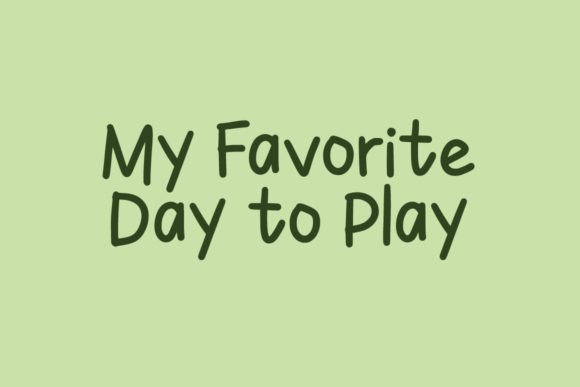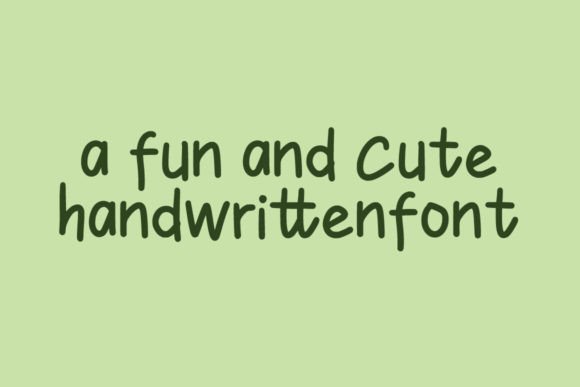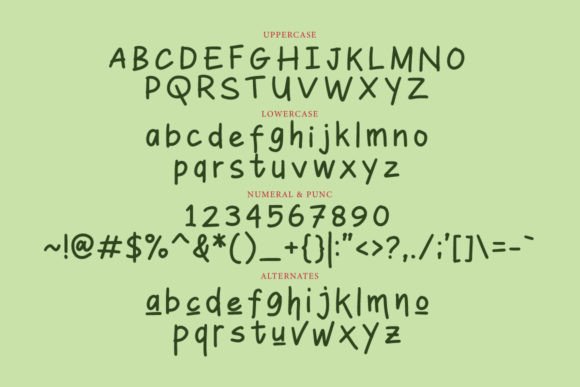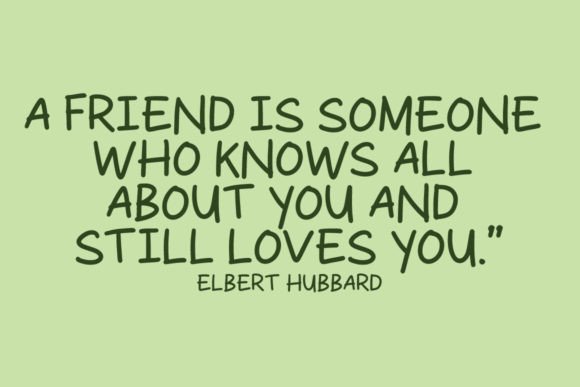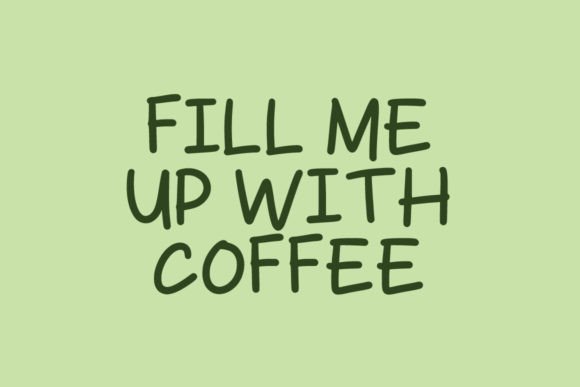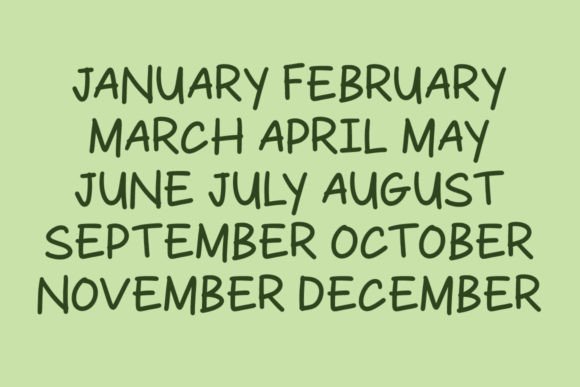
The Perfect Font for Making a Statement
Have you ever stared at a blank page, pen in hand, waiting for that elusive spark of creativity to strike? The moment when words flow effortlessly onto the page, and your design takes shape? That’s the magic of design. And for designers looking to add an extra layer of flair to their work, there’s one font that’s sure to deliver: the Bobby Flow Display Font.
| 👤 Author | Tebaltipis.std |
This awesome character regular font is perfect for making a statement, whether it’s on a namecard, poster, logo, or even a t-shirt. Its unique style and versatility make it a valuable addition to any designer’s toolkit. With the Bobby Flow Display Font, you can add a touch of sophistication and personality to your designs, setting them apart from the crowd.
Bobby Flow Display Font Key Features
- Font Family: Bobby Flow Display Font
- Unique Characteristics: Bobby Flow Display Font features a unique, hand-drawn design with a flowing, cursive feel, making it ideal for use in headings, titles, and other display typography
Bobby Flow Display Font Review
Overall, I think Bobby Flow Display Font has some great qualities, but it also has some areas where it falls short. Let’s dive in.
- Fun, creative feel: This font is perfect for designers looking for something a bit quirky and eye-catching. It’s great for titles and headings where you want to add some personality.
- High-quality rendering: The font renders well on both digital and print materials, making it a solid choice for various design projects.
- Wide character set: Bobby Flow Display Font includes a wide range of characters, including punctuation, numbers, and even some special characters.
- Limited legibility at small sizes: While the font looks great at larger sizes, it can become difficult to read at smaller sizes. This may be a concern for designers who need to use the font in smaller contexts.
- No bold or italic weights: Unfortunately, Bobby Flow Display Font only comes in one weight, which can limit its versatility.
Overall impression
Bobby Flow Display Font is a solid choice for designers looking for a fun, creative font. While it may not be suitable for all design projects, it’s perfect for those where you want to add some personality and flair. Just be mindful of its limitations, especially when it comes to legibility at small sizes.
Use Bobby Flow Display Font to create eye-catching headlines and titles.
Combine it with other fonts to create a unique and visually appealing design.
Experiment with different font sizes and colors to achieve the desired effect.
Bobby Flow Display Font is perfect for:
Creating bold and eye-catching headlines.
Designing posters, flyers, and social media posts.
Adding a touch of sophistication to presentations and documents.